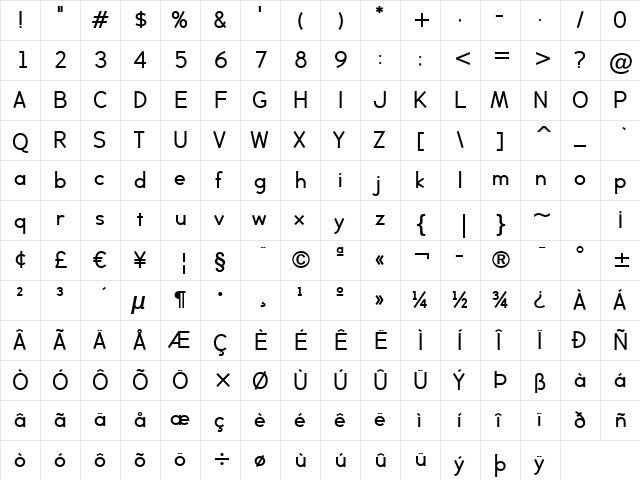
BacktalkSans BTN Bold Font Preview
BacktalkSans BTN Bold
BacktalkSans BTN Bold Font Details
Design Context for BacktalkSans BTN Typeface
BacktalkSans BTN takes a measured approach to typography — its balanced proportions and neutral character make it a reliable workhorse for both digital and print work. The heavy weight commands attention and anchors typographic hierarchies.